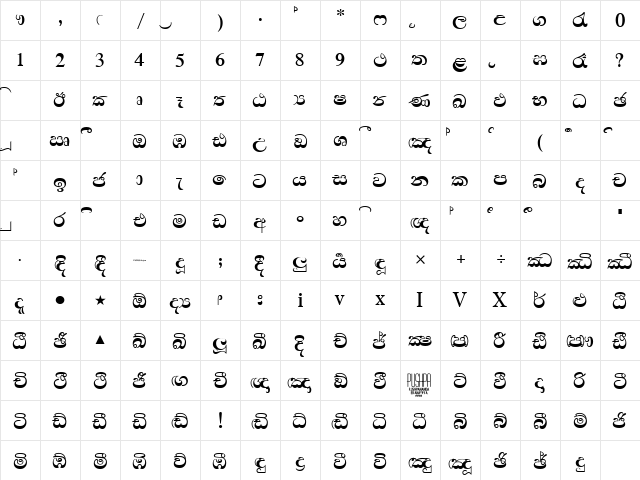
FMEconbld Bold Font Preview
FMEconbld Bold
Design Context for FMEconbld Typeface
FMEconbld offers clean, dependable letterforms without strong stylistic allegiance, making it a practical choice for designers who need flexibility. Its bold stroke weight gives it real presence on the page.